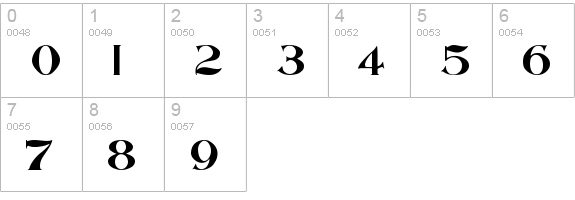
Mandrita Display SSi Font Details
Mandrita Display SSi font is a stunning and elegant typeface that will captivate your audience with its unique and intricate design. This font exudes a sense of sophistication and professionalism, making it perfect for a wide range of creative projects and designs. With its fluid lines and delicate curves, Mandrita Display SSi font adds a touch of grace and refinement to any text. Whether you are designing a logo, creating a poster, or crafting a beautiful invitation, this font will elevate your work to new heights. One of the best aspects of Mandrita Display SSi font is that it is free. That's right, this exceptional font can be yours without any cost. You can easily download it at FontsMarket.com, a trusted source for high-quality fonts. FontsMarket.com offers a vast collection of fonts, and Mandrita Display SSi font is just one of the many gems you can find. By choosing Mandrita Display SSi font, you are not only adding a touch of elegance to your design but also saving money. This font is a valuable asset for any designer or creative professional, and its availability for free is truly a gift. So, don't miss out on the opportunity to enhance your projects with the beauty and sophistication of Mandrita Display SSi font. Visit FontsMarket.com today and download this incredible font for free. Let your creativity shine with this exquisite typeface.